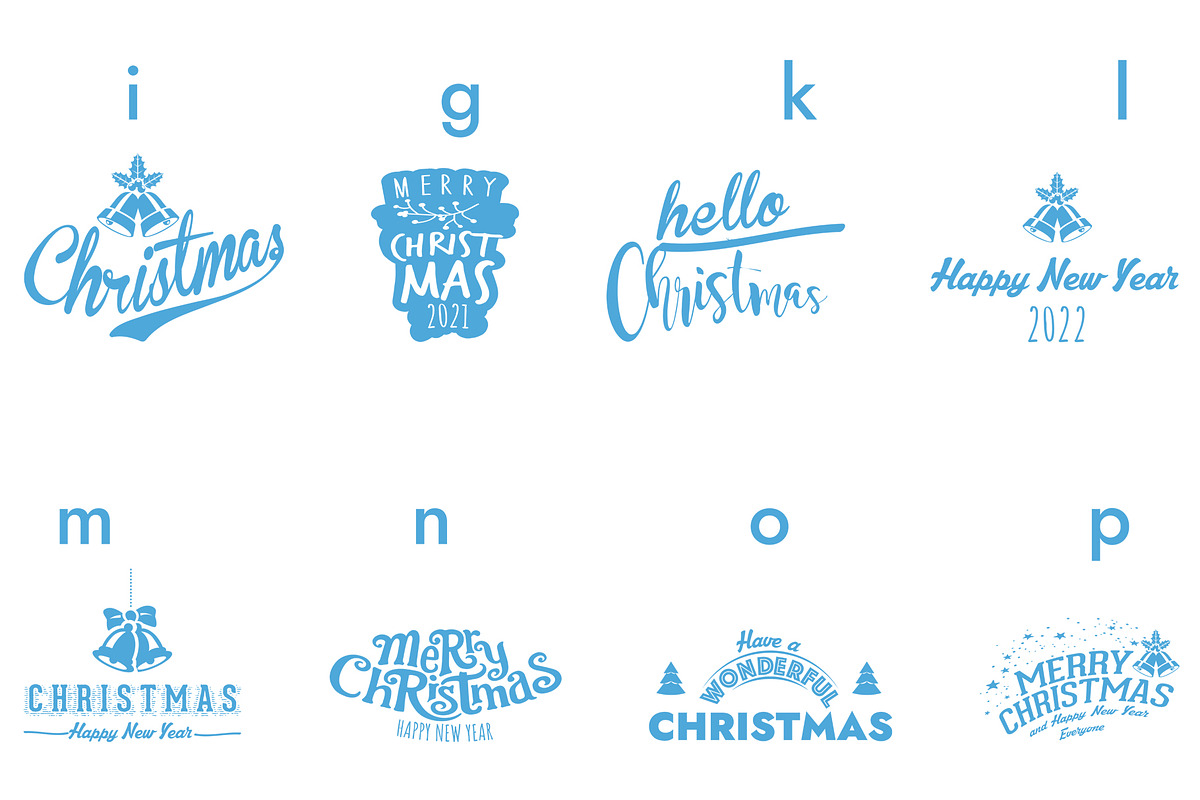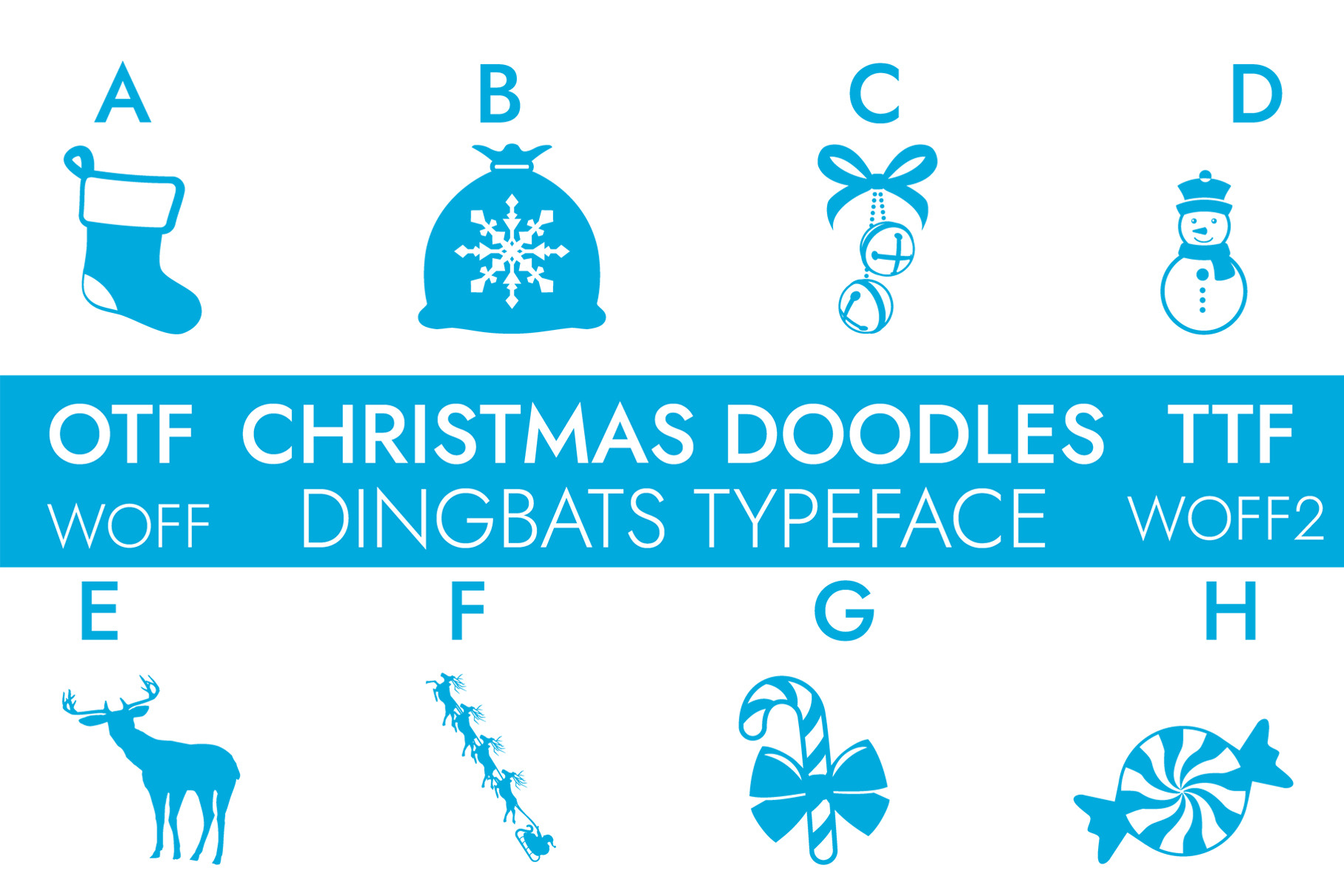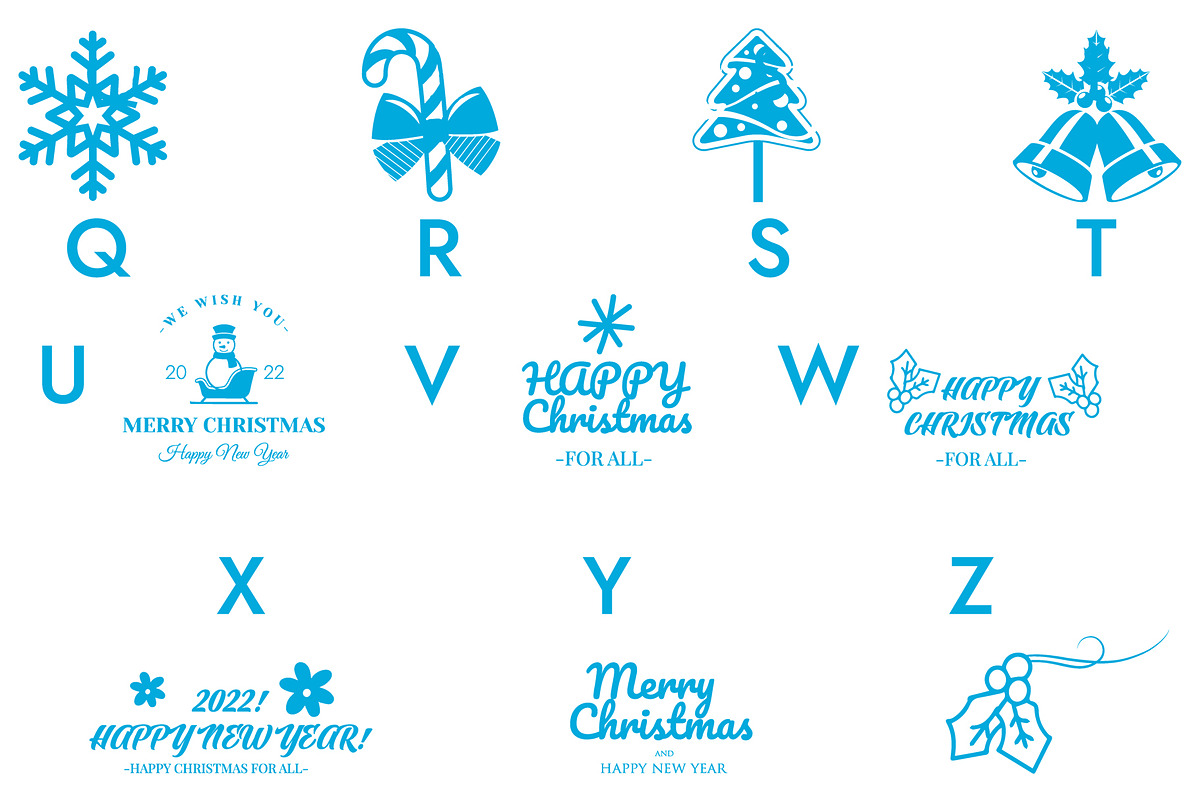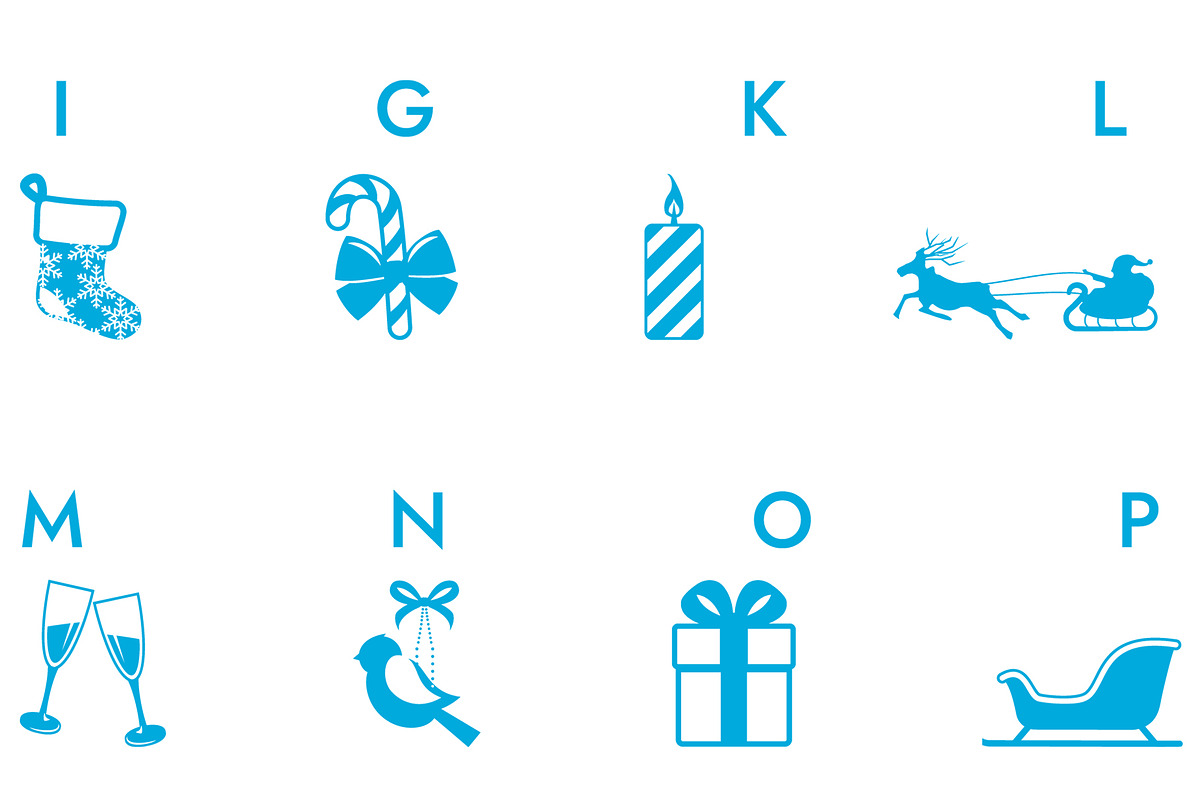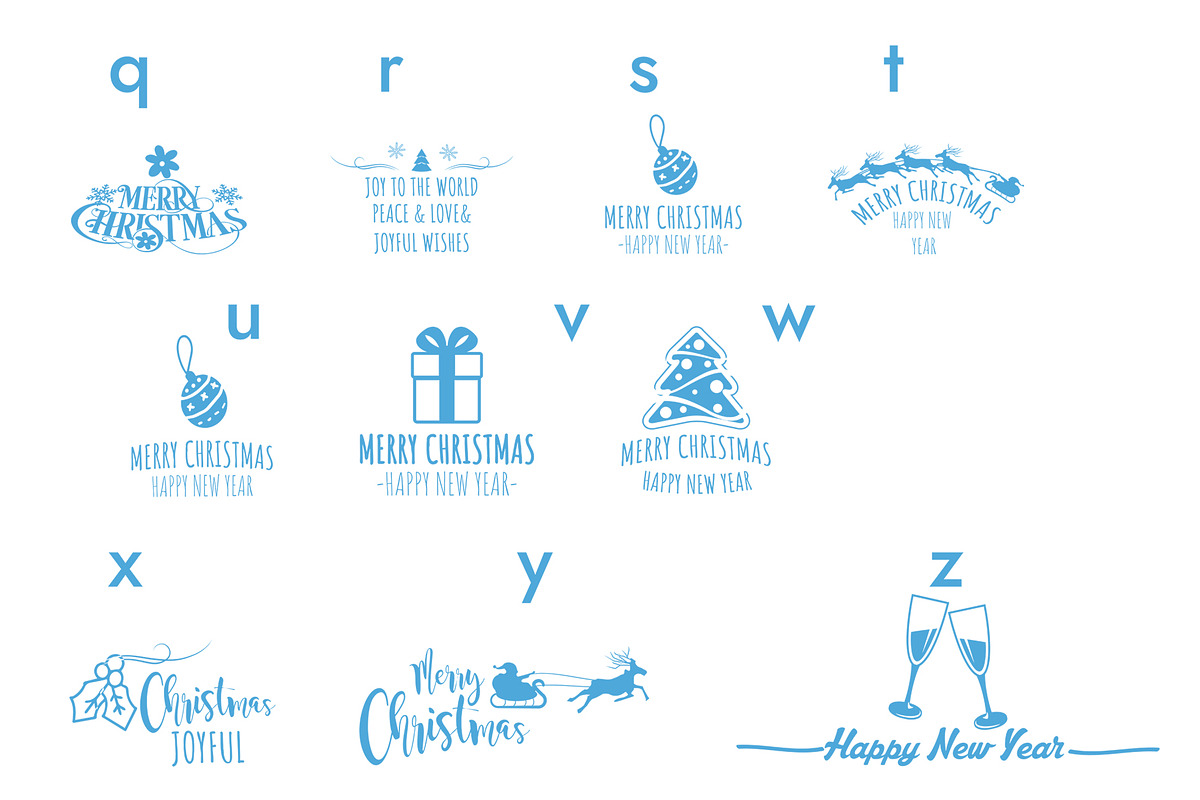
Christmas Doodle Dingbats Font
Christmas Doodle is a fun, wintery and festive dingbats font. Add it to your favorite designs and notice how they come to life.